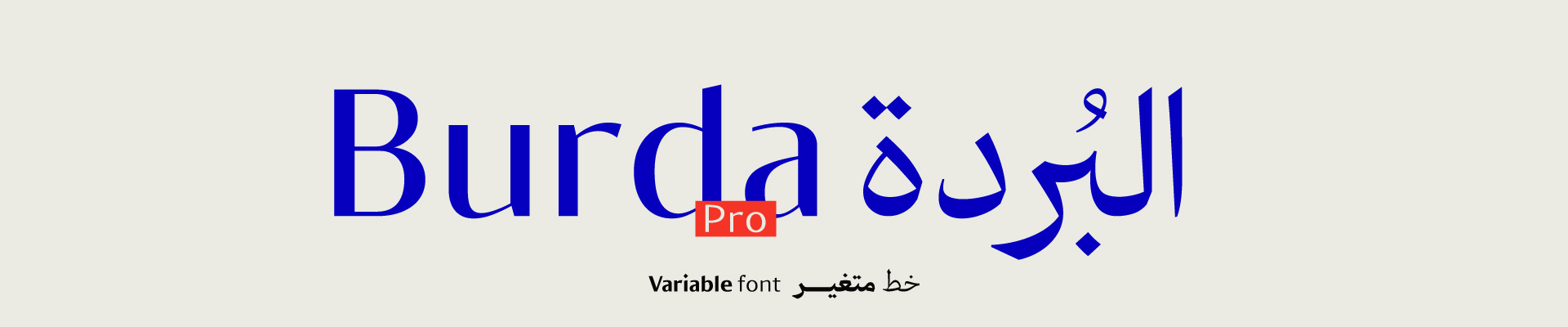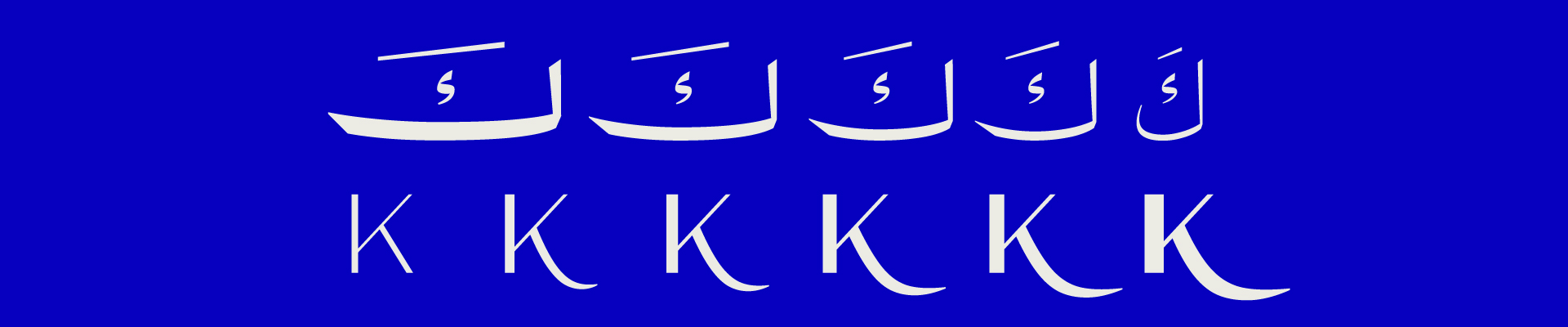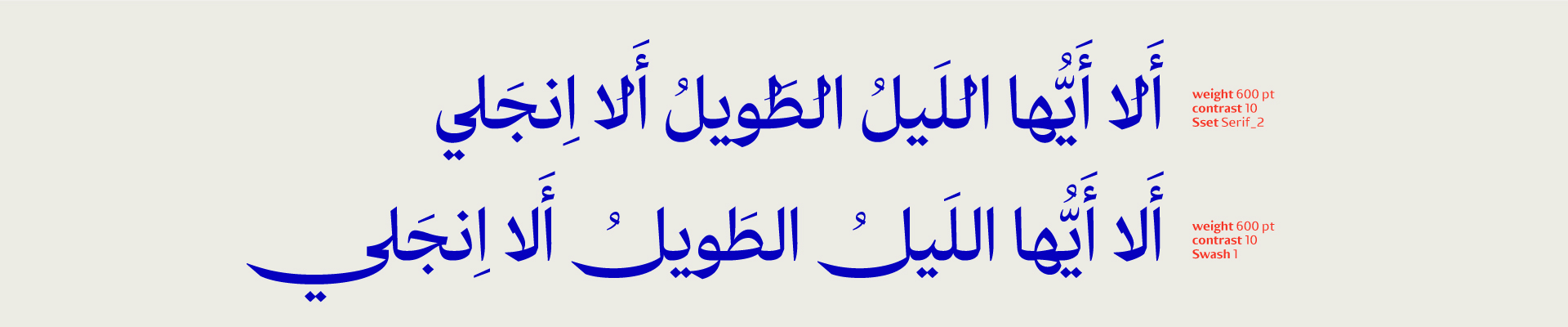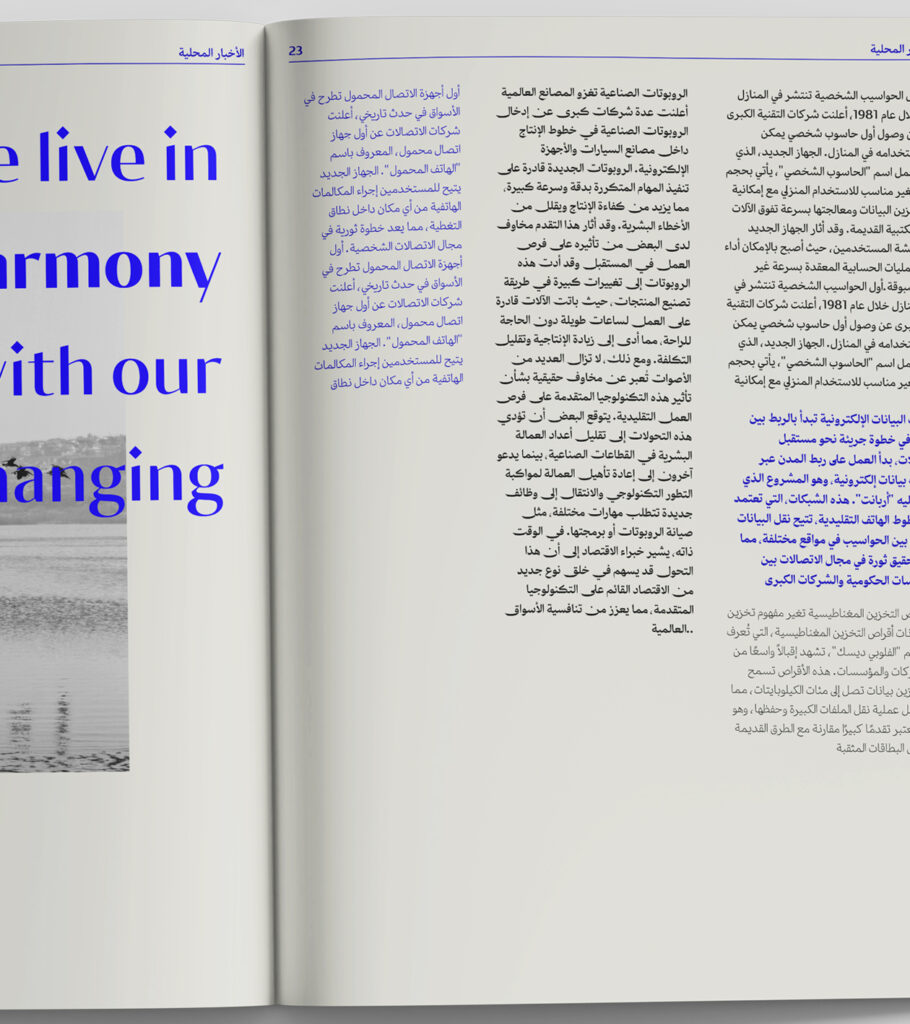
About Burda Pro Font
After the great success of the Al-Burda font, we at TS Fonts Studio decided to take it to a new level! We began by developing the font, adding new supported languages, and incorporating variable font technology, making “Al-Burda Pro” more versatile and comprehensive.
it is part of a modern Naskh font family with weights ranging from Light to Extrabold support Arabic and Latin Languages, Burda pro is distinguished by its ability to control three variable axes, allowing users to access multiple letterforms within the same font.
this font includes three variable axes:
- Weight Axis: Ranging from thin to bold, enabling precise control over letter thickness.
- Contrast Axis: it offers a dynamic and visually engaging reading experience.
- Bowl Size Axis: Enabling adjustment of the size and shape of wide bowls, promoting balance and aesthetics.